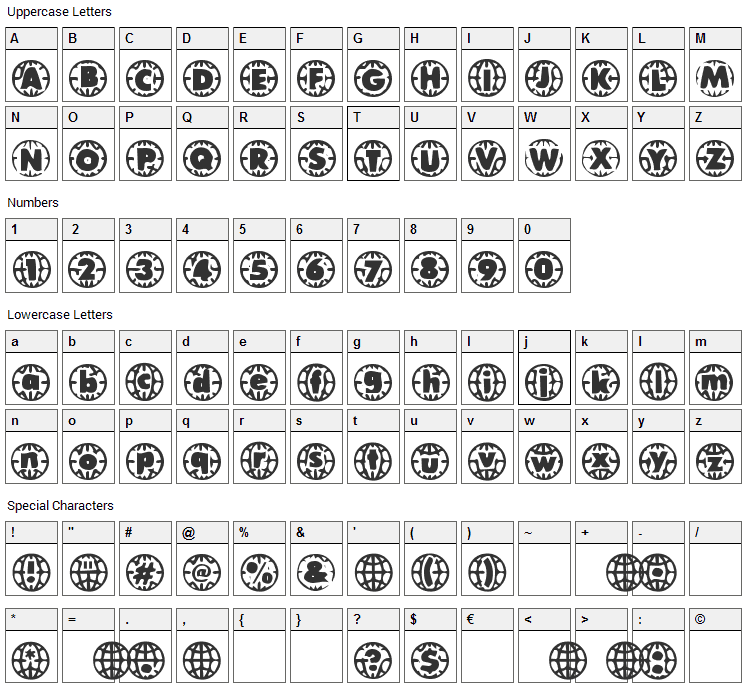
Vintage Vacation Font
I made this font because I needed something that kind of had a 1950's Summer Safari theme. I may not have captured it too well, but it served its purpose for me. Now you can have it.